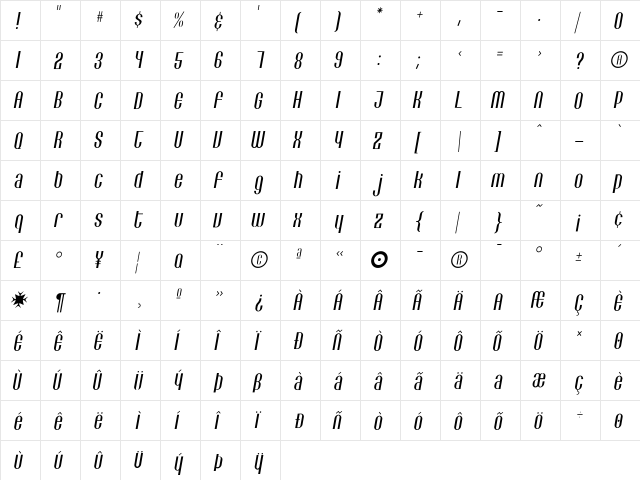
Lithia Light Italic
Design Context for Lithia Typeface
Lithia takes a measured approach to typography — its balanced proportions and neutral character make it a reliable workhorse for both digital and print work. Its italic angle brings a sense of urgency and motion to the letterforms. Its slender proportions lend an understated elegance to any composition.
Pro Tip: Use Lithia for emphasis, pull quotes, and subheadings where its slanted energy can add rhythm to the layout.